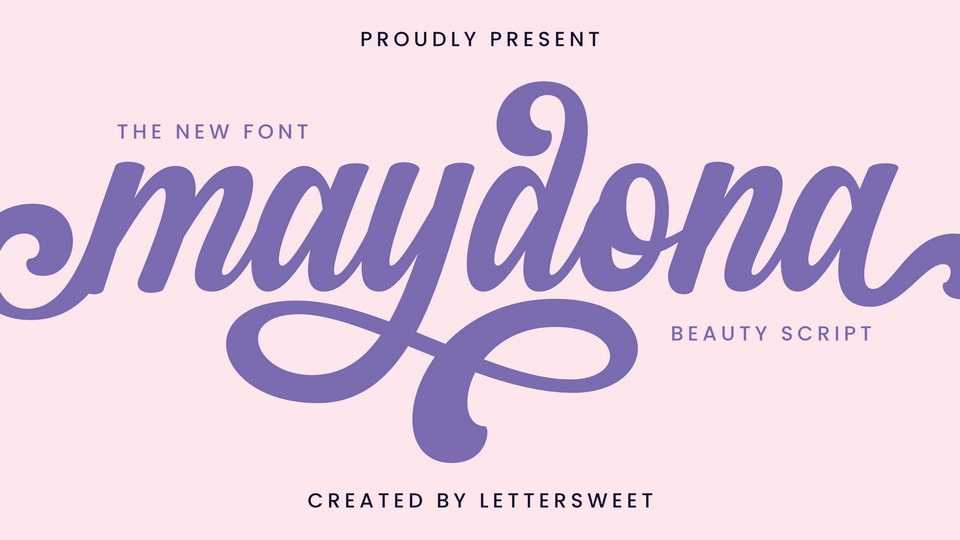
Download Maydona font, a beautifully crafted calligraphic typeface brimming with an array of alternative styles, unveils an infinite landscape of design opportunities.